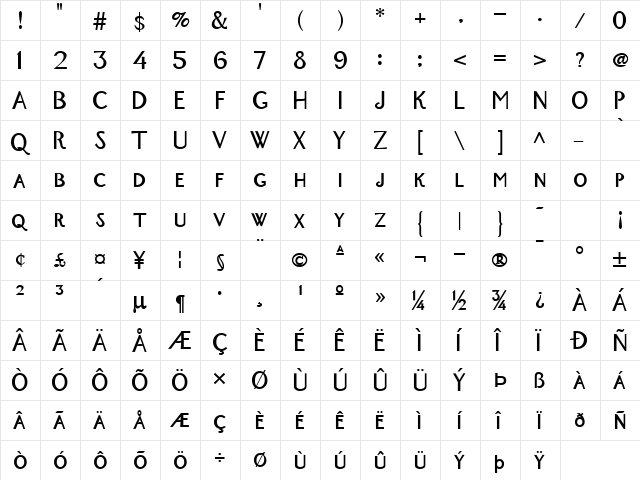
New York Bold
Design Context for New York Typeface
New York takes a measured approach to typography — its balanced proportions and neutral character make it a reliable workhorse for both digital and print work. Its bold stroke weight gives it real presence on the page.